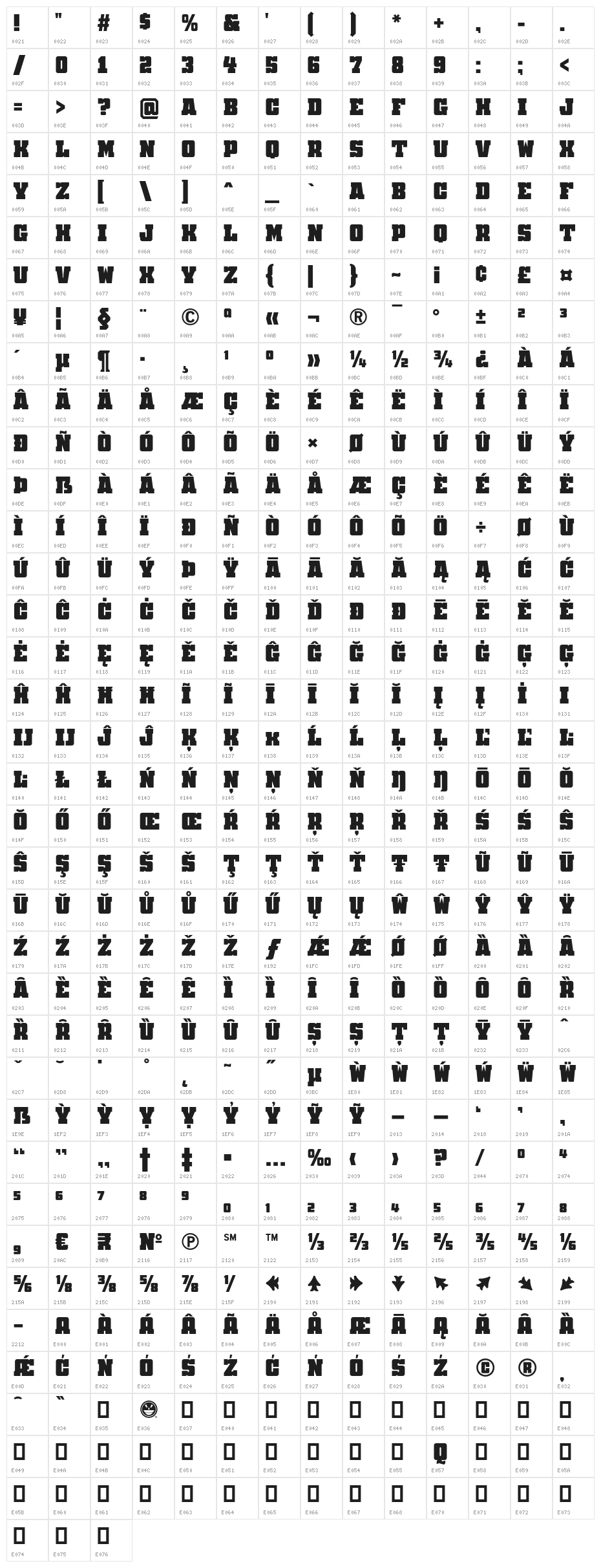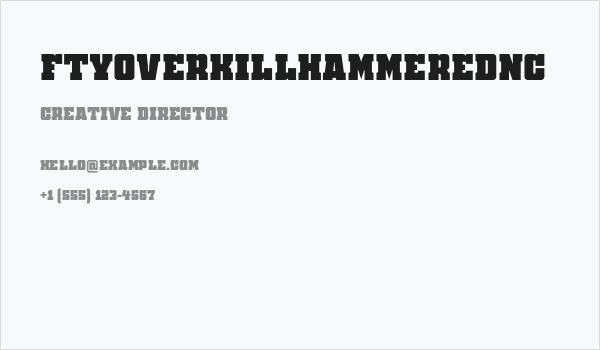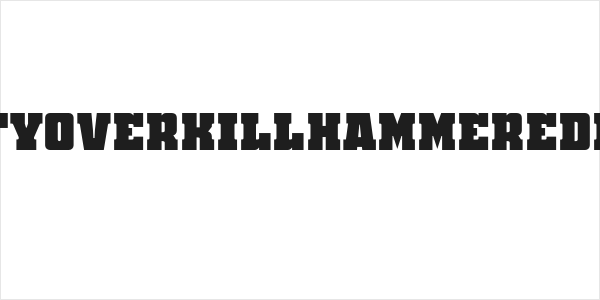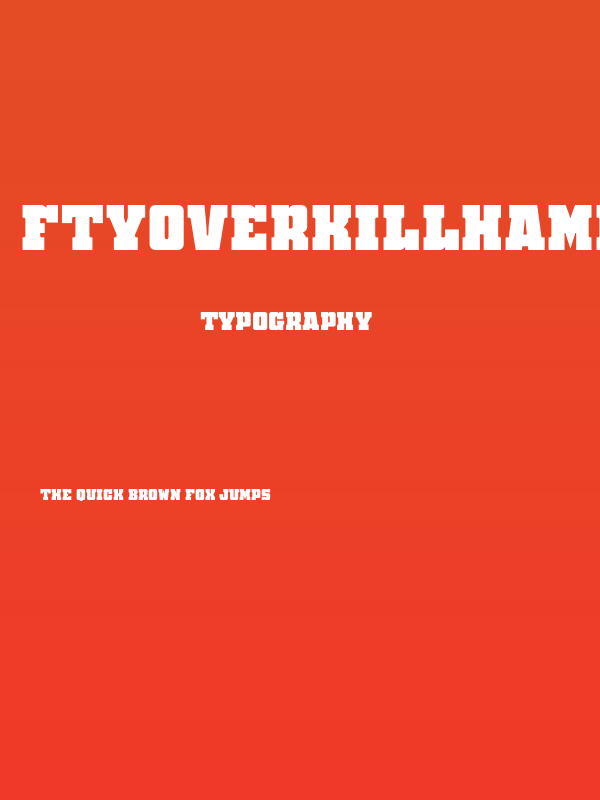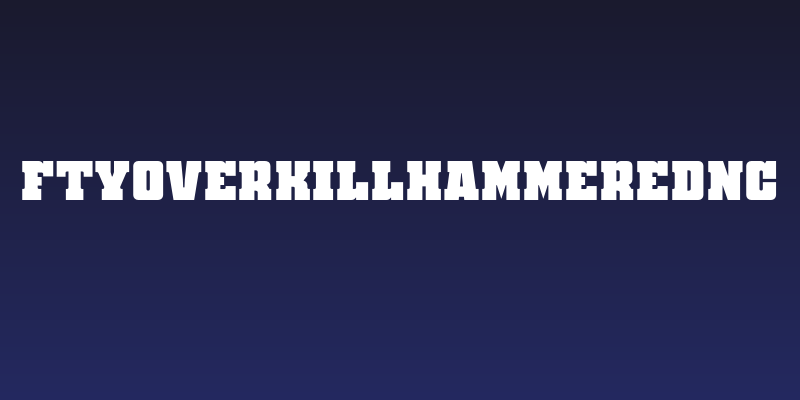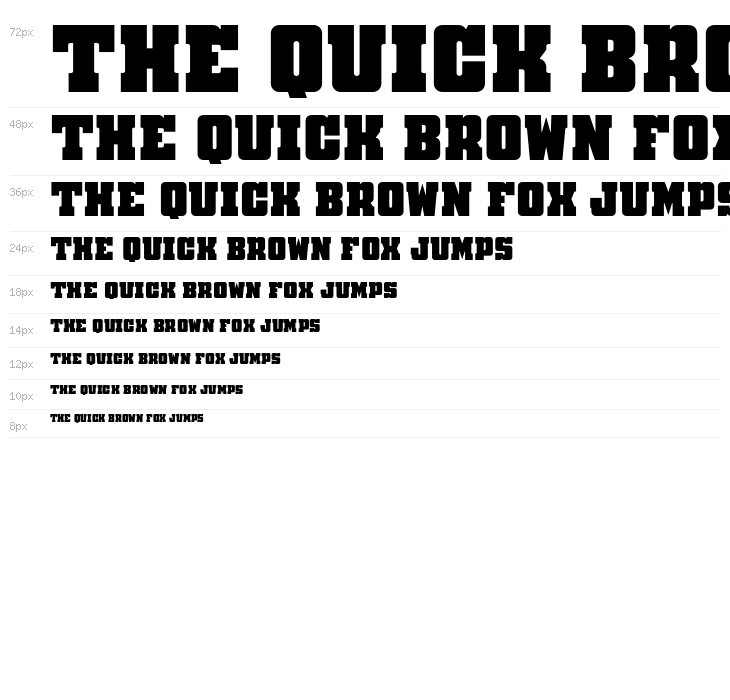
FTYOverKillHammeredNC Font
FTYOverKillHammeredNC Description
This font is a bold, impactful typeface with a strong presence, characterized by thick, blocky letters that convey a sense of strength and durability. The uppercase and lowercase letters maintain a consistent weight, giving the font a uniform appearance. The numerals and special characters are equally robust, ensuring readability and emphasis. The overall design is reminiscent of industrial or sports-themed aesthetics, making it ideal for projects that require a commanding visual impact.
| Overall Style | Industrial |
| Proposed Projects | Ideal for sports branding, posters, headlines, and any design requiring a strong, impactful typeface. |